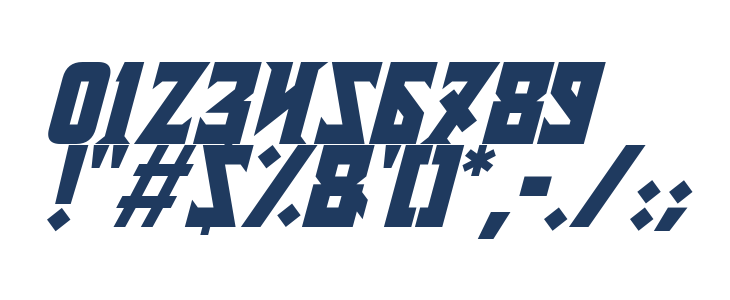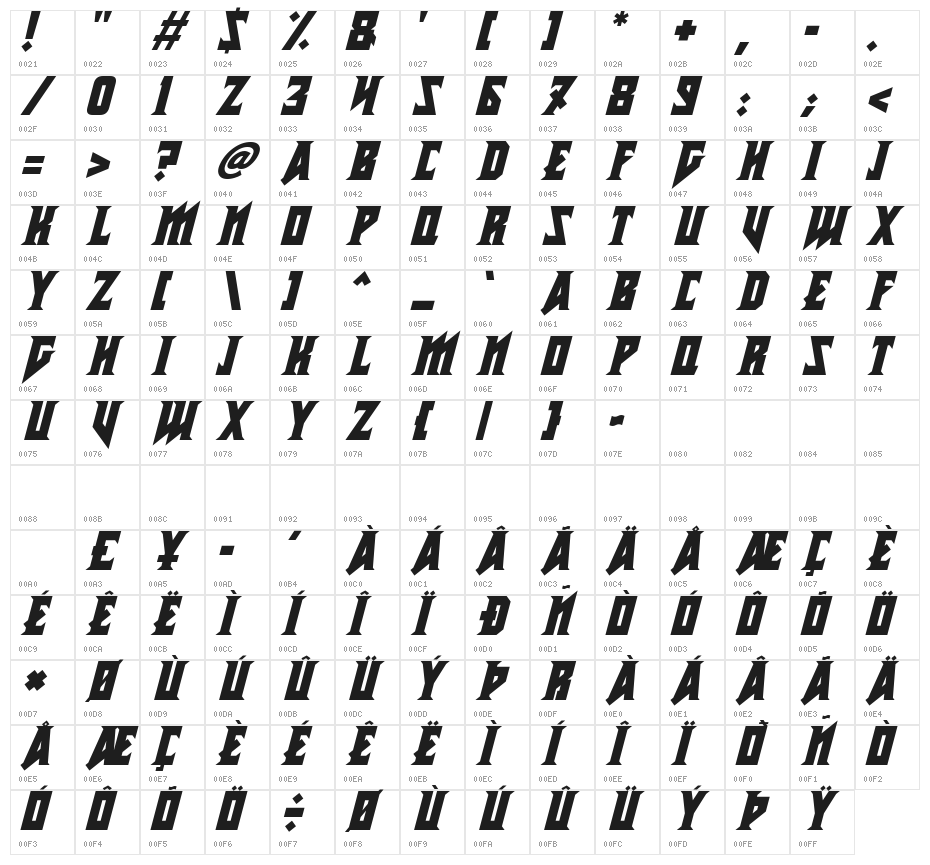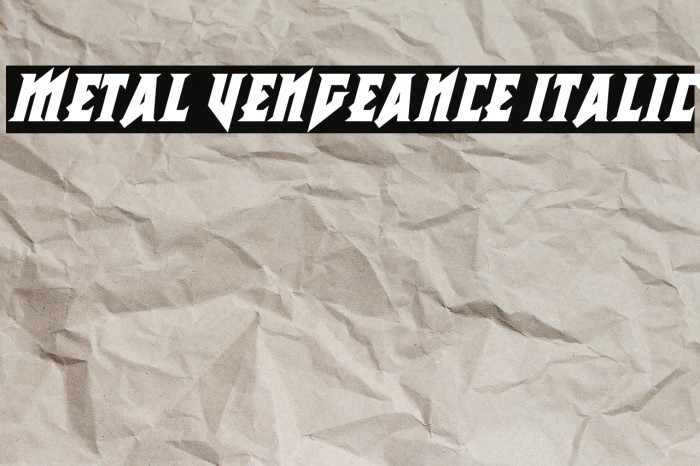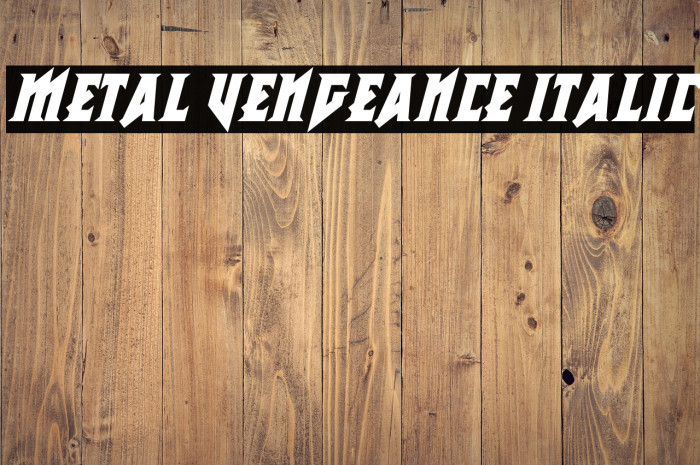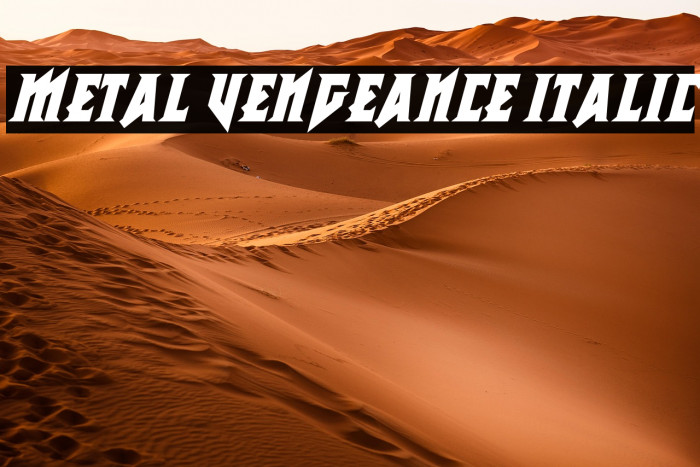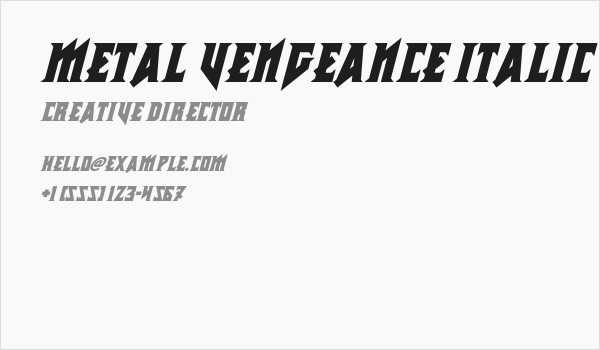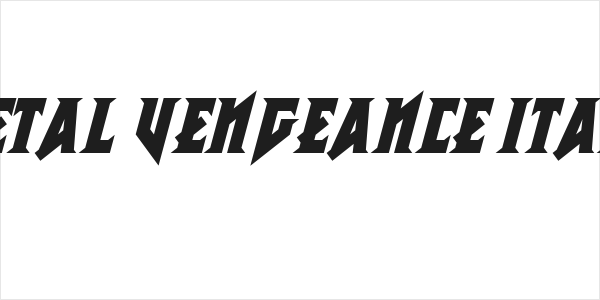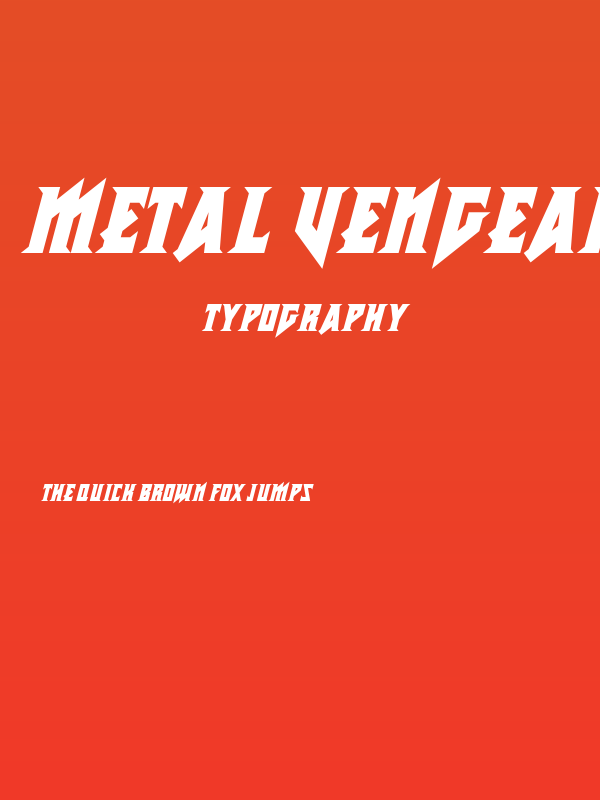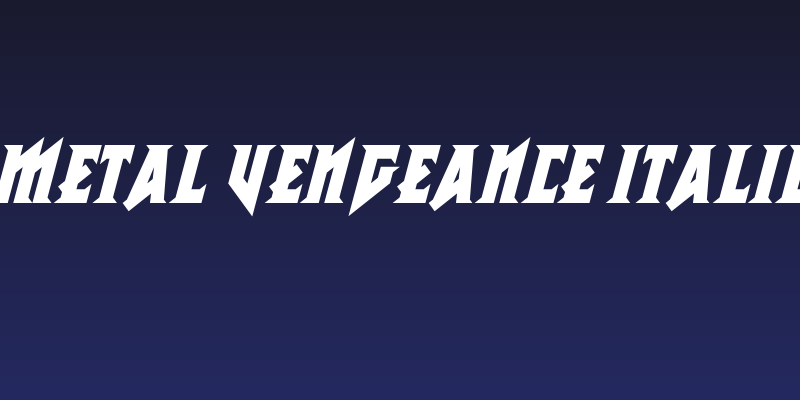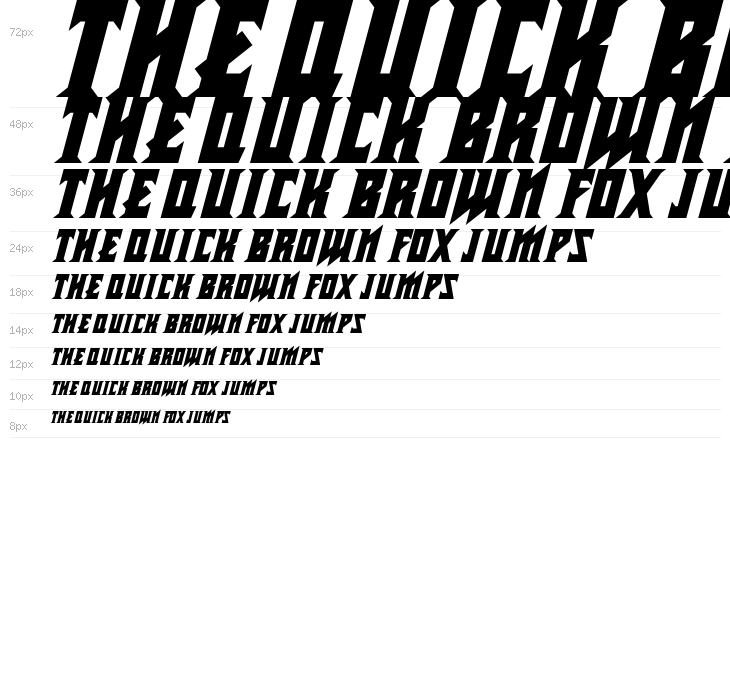
Metal Vengeance Italic Font
Metal Vengeance Italic Description
This font features a bold, aggressive style with sharp, angular edges and a distinct italic slant. The characters are designed with a heavy emphasis on geometric shapes, giving them a dynamic and energetic appearance. The uppercase and lowercase letters maintain a consistent style, with exaggerated points and a strong sense of motion. The numbers and special characters follow the same design principles, ensuring a cohesive look across all elements. This font is ideal for projects that require a powerful and impactful visual presence.
| Proposed Projects | Ideal for music album covers, sports team logos, video game titles, and event posters. |